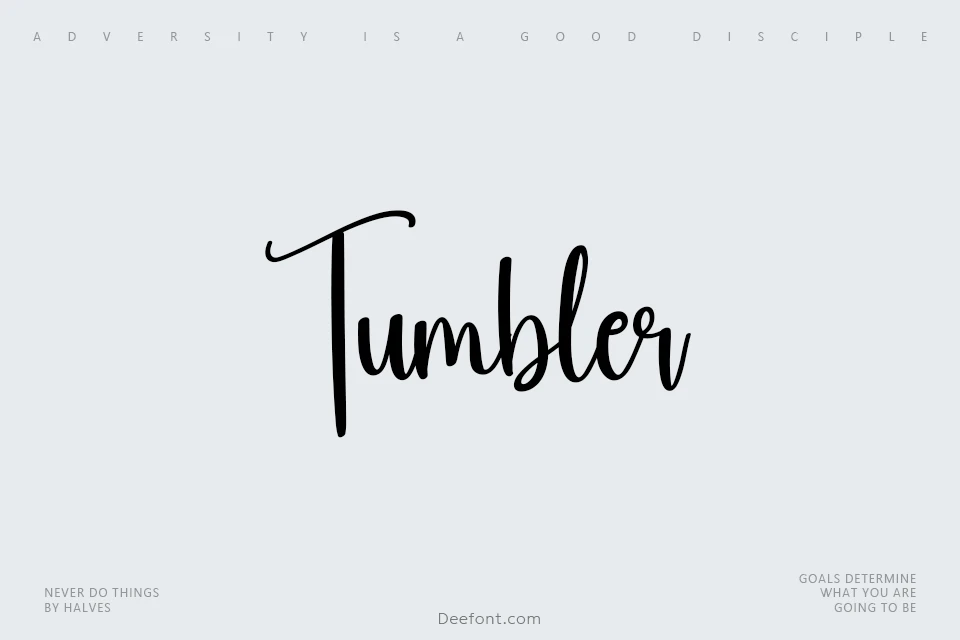
Tumbler Font
Tumbler Font is a modern and professional script typeface presented as a “simply handwritten” font. This elegant typeface features clean, flowing lines and graceful curves, capturing a straightforward yet sophisticated handwritten aesthetic. With 137 glyphs included, it provides essential characters for diverse design needs. Tumbler Font is ideal for branding, creating stylish logos, designing invitations, enhancing social media content, and any project benefiting from a personal, elegant handwritten touch that maintains a polished, professional feel.